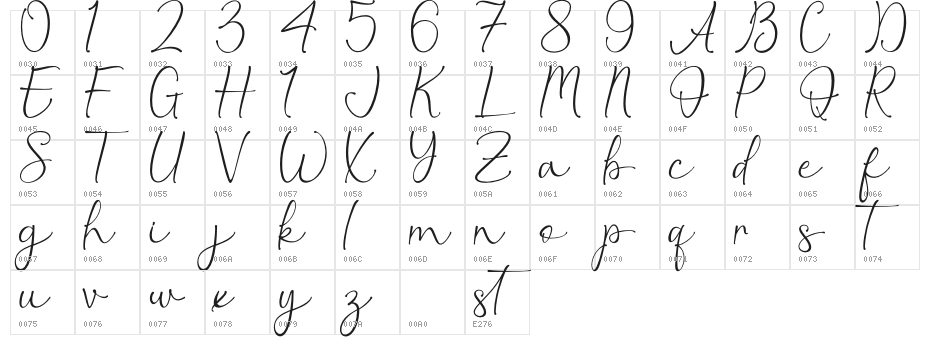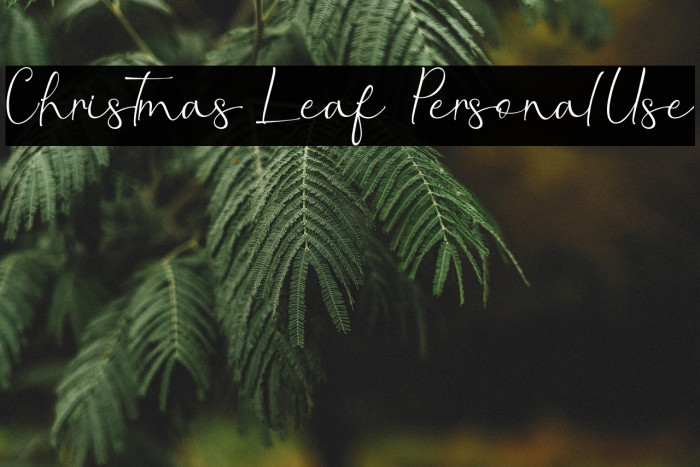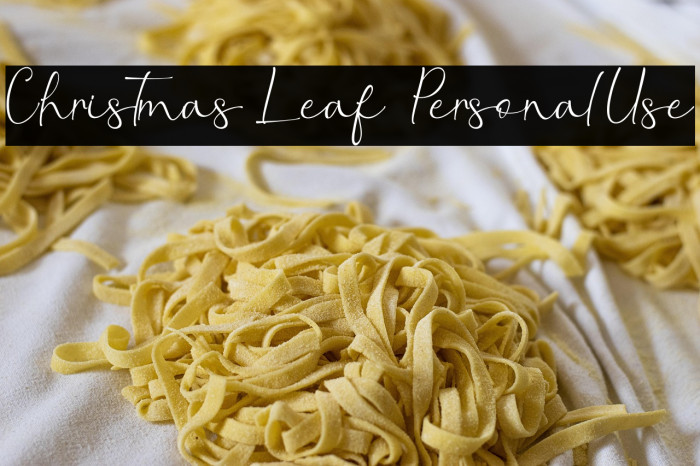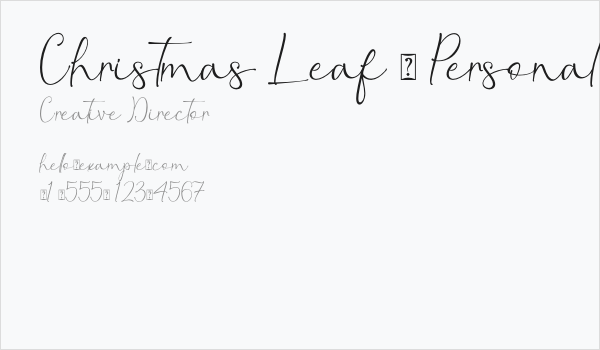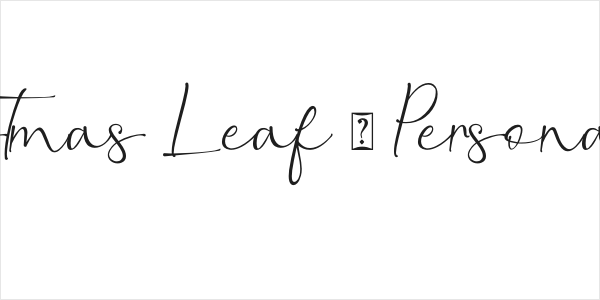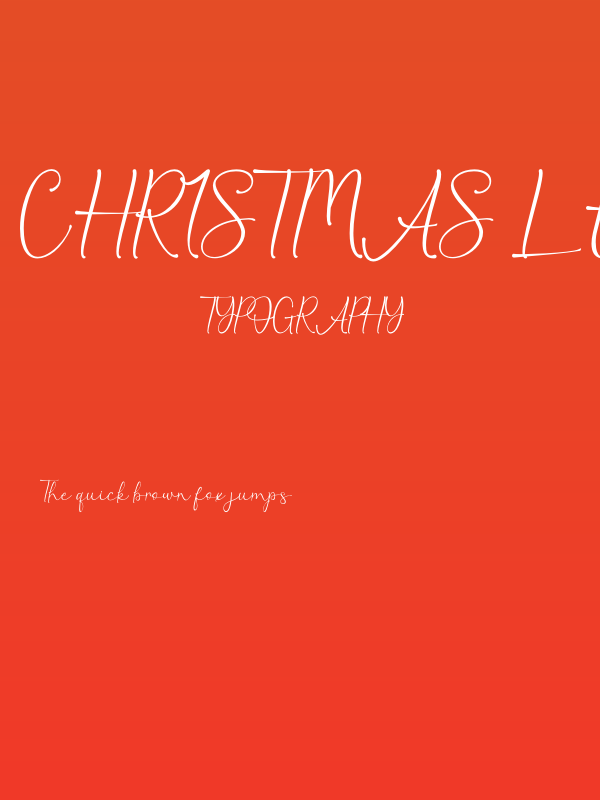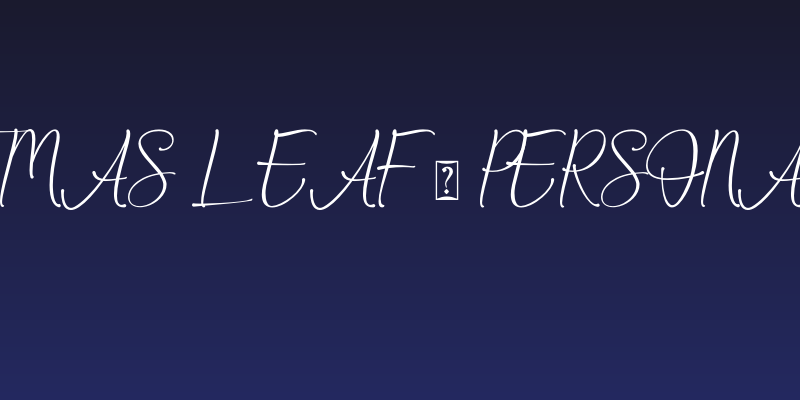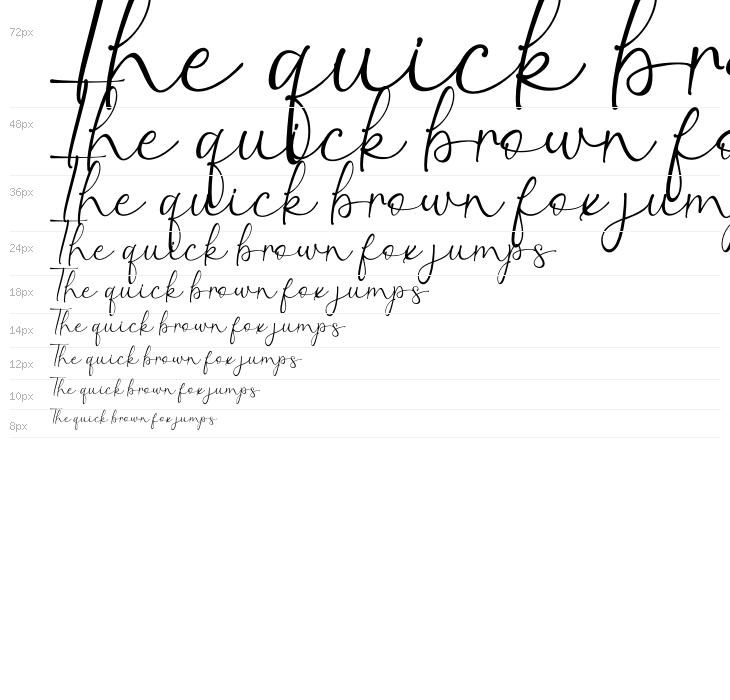
Christmas Leaf - Personal Use Font
Christmas Leaf - Personal Use Description
This font features a whimsical and elegant script style, characterized by fluid, flowing lines and a hand-drawn appearance. The uppercase letters are tall and slightly narrow, with a graceful, looping quality that adds a touch of sophistication. The lowercase letters maintain a consistent style, with smooth curves and a natural, cursive flow. The numerals are similarly styled, with a playful yet refined look. The overall design is reminiscent of handwritten calligraphy, making it ideal for projects that require a personal and artistic touch. The font's unique style is perfect for festive occasions, invitations, and creative branding.
| Use Case | Invitations, Decorative text, Branding |
| Proposed Projects | Ideal for holiday cards, wedding invitations, branding, and decorative projects. |